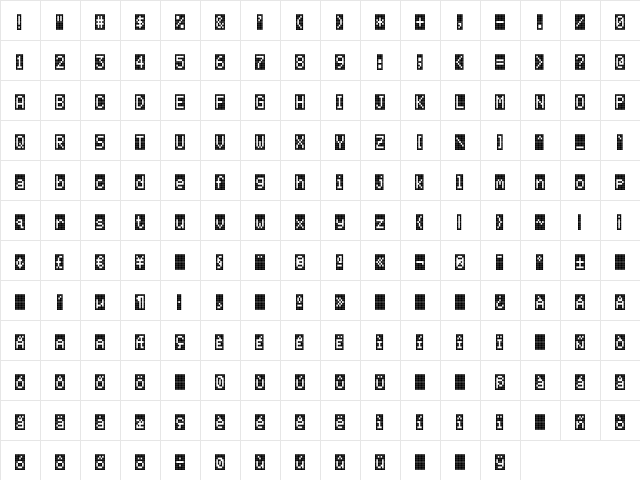
CallFourS-Negativ Regular Font Preview
CallFourS-Negativ Regular
CallFourS-Negativ Regular Font Details
Design Context for CallFourS-Negativ Typeface
CallFourS-Negativ is a composed and adaptable typeface that performs quietly and consistently across a wide range of design contexts.